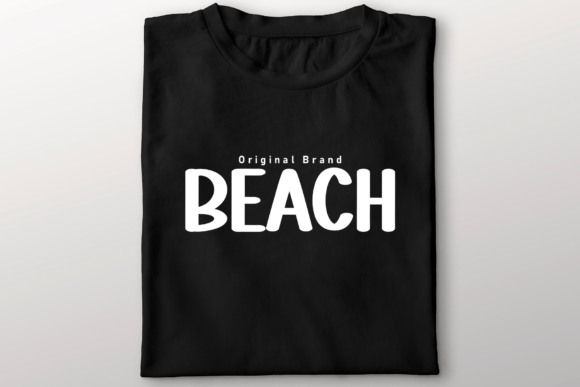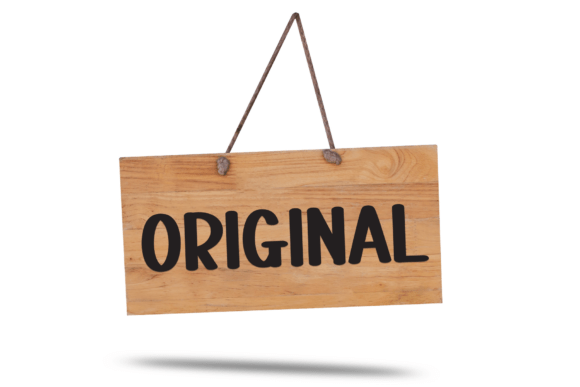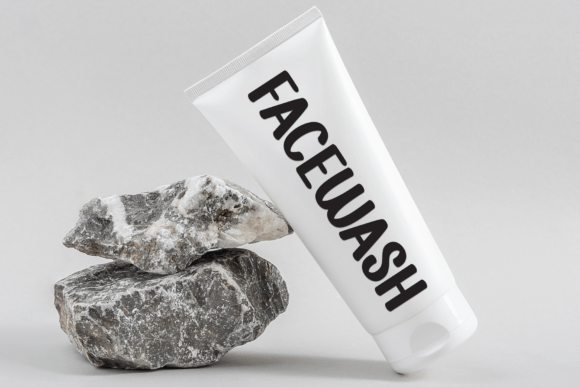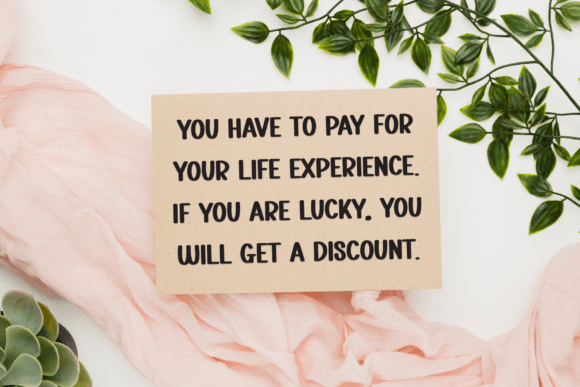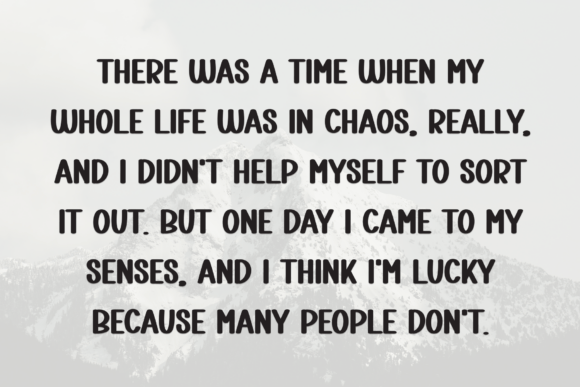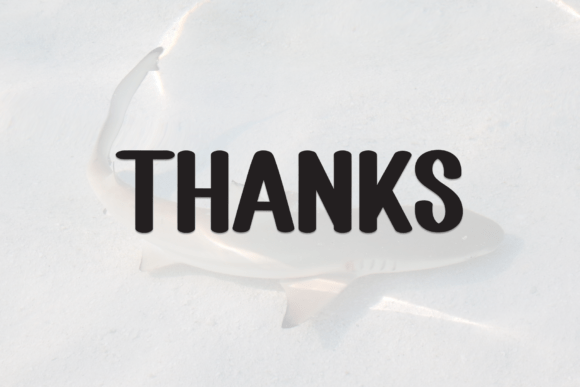
The Font that Made Waves: Unveiling the Magic of Baby Shark Font
Do you remember the moment when you finally nailed that perfect design project? The thrill of creating something beautiful, the satisfaction of bringing an idea to life – it’s a feeling that never gets old. For designers, those eureka moments are a constant source of inspiration, and the right tools can make all the difference. One such tool that has been making waves in the design community is the Baby Shark Font, a precision-point, handcrafted typography that has captured the hearts of many.
With its unique blend of chic sophistication and whimsy, the Baby Shark Font is more than just a typeface – it’s a guarantee to inject your projects with an energizing jolt of bewitching vigor. Whether you’re designing wedding invitations, greeting cards, or any other project that requires a touch of magic, this font is sure to deliver.
Baby Shark Font Key Features
- Unique Characteristics: The Baby Shark Font features a distinctive, child-friendly design with bold lines, bright colors, and a playful feel, making it perfect for children’s products, educational materials, and family-friendly brands.
Baby Shark Font Review
The Baby Shark Font is a fun and playful font that is sure to bring a smile to the faces of children and adults alike. The font is inspired by the popular children’s song “Baby Shark” and features bold, rounded letters that are reminiscent of a child’s drawing.
- ✨ The font is incredibly versatile and can be used for a wide range of designs, from children’s books to nursery decor.
- ✨ The font is highly customizable, allowing designers to adjust the size, color, and style to suit their needs.
- ✨ The font is easy to read and understand, even at small sizes.
- ⚠️ The font may not be suitable for professional or formal designs, as it is quite playful and childlike.
- ⚠️ The font may be too similar to other fonts on the market, making it difficult to stand out in a crowded design landscape.
Overall, I would give the Baby Shark Font 3.5 out of 5 stars. While it is a fun and playful font, it may not be suitable for all design projects. However, for those looking for a font that is sure to bring a smile to the faces of their audience, this font is definitely worth considering.
The Baby Shark font is perfect for creating fun and playful designs, such as:
- Animated GIFs and videos
- Social media posts and graphics
- Printable art and wall decor
Remember to have fun and experiment with different font sizes and styles to get the most out of the Baby Shark font!